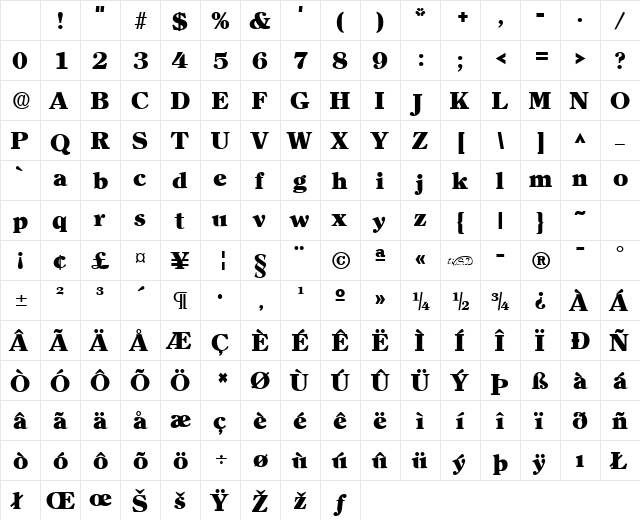
ClearlyRomanHeavy Regular
Design Context for ClearlyRomanHeavy
ClearlyRomanHeavy is a composed and adaptable typeface that performs quietly and consistently across a wide range of design contexts.
Pro Tip: Use ClearlyRomanHeavy in both headline and body roles to test its range before committing to a single application.